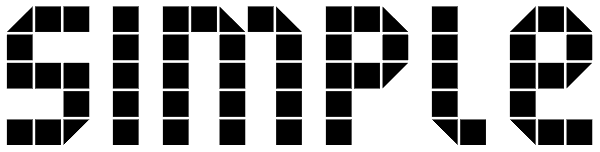
Simple
Simple - The Bilingual Font. The process of Simple began with the usual alphabets followed by a series of icons and soon it was an avalanche of Chinese characters. The pool of proposed Chinese characters were loosely determined by the needs of a...